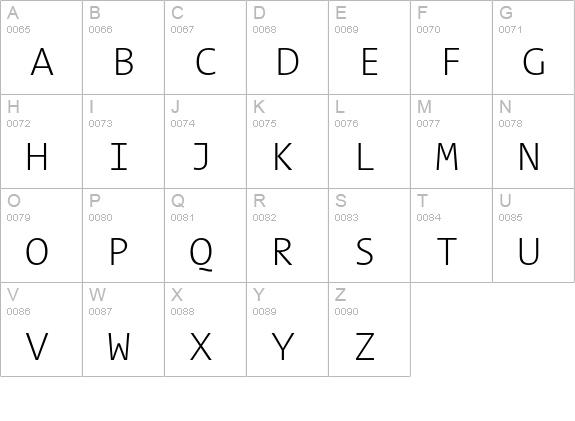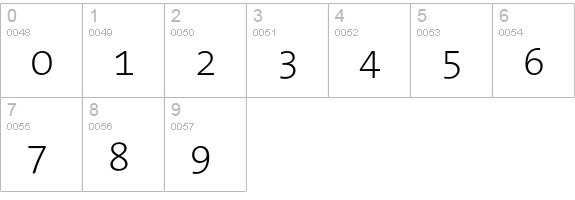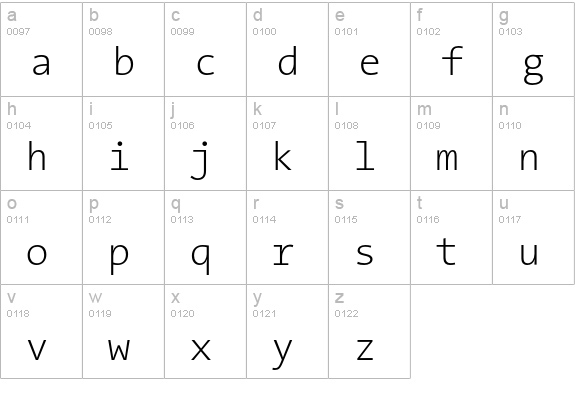
TheSansMono Extra Light is a refined, elegant variant in the TheSansMono typeface family \xE2\x80\x94 well suited to elegant body text, refined sub-headings, and luxury branding.
TheSansMono Extra Light font is an elegant and refined typeface that exudes a sense of simplicity and clarity. With its delicate strokes and slim design, this font is perfect for creating a clean and modern look in any design project. TheSansMono Extra Light font is meticulously crafted with attention to detail, resulting in a typeface that is not only visually appealing but also highly legible. Its clean lines and well-proportioned characters make it a versatile choice for a wide range of applications, from branding and advertising to web design and print materials. One of the best features of TheSansMono Extra Light font is that it is free to download. Available on FontsMarket.com, this font can be easily accessed and used in various projects without any cost. This makes it an excellent choice for designers, students, and anyone looking for a high-quality typeface without breaking the bank. Whether you're working on a professional project or simply want to add a touch of sophistication to your personal designs, TheSansMono Extra Light font is a fantastic option. Its timeless elegance and versatility make it a must-have in any font collection. Download it for free at FontsMarket.com and elevate your design to new heights.